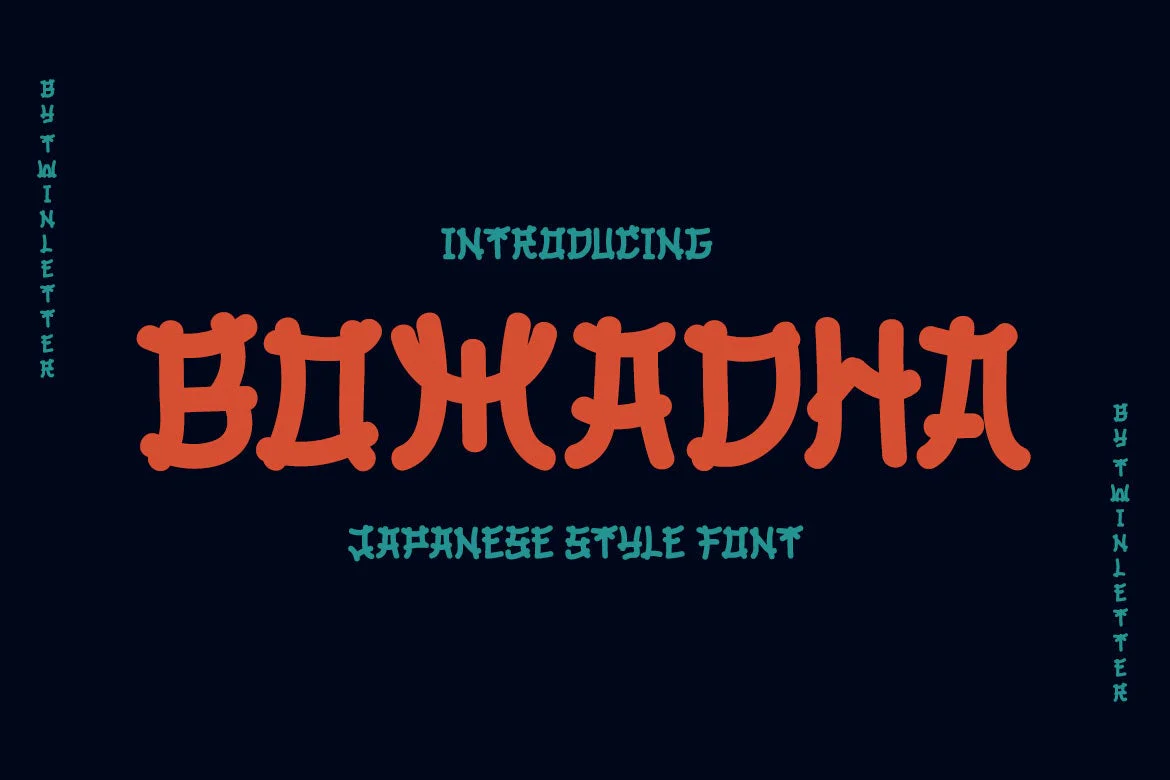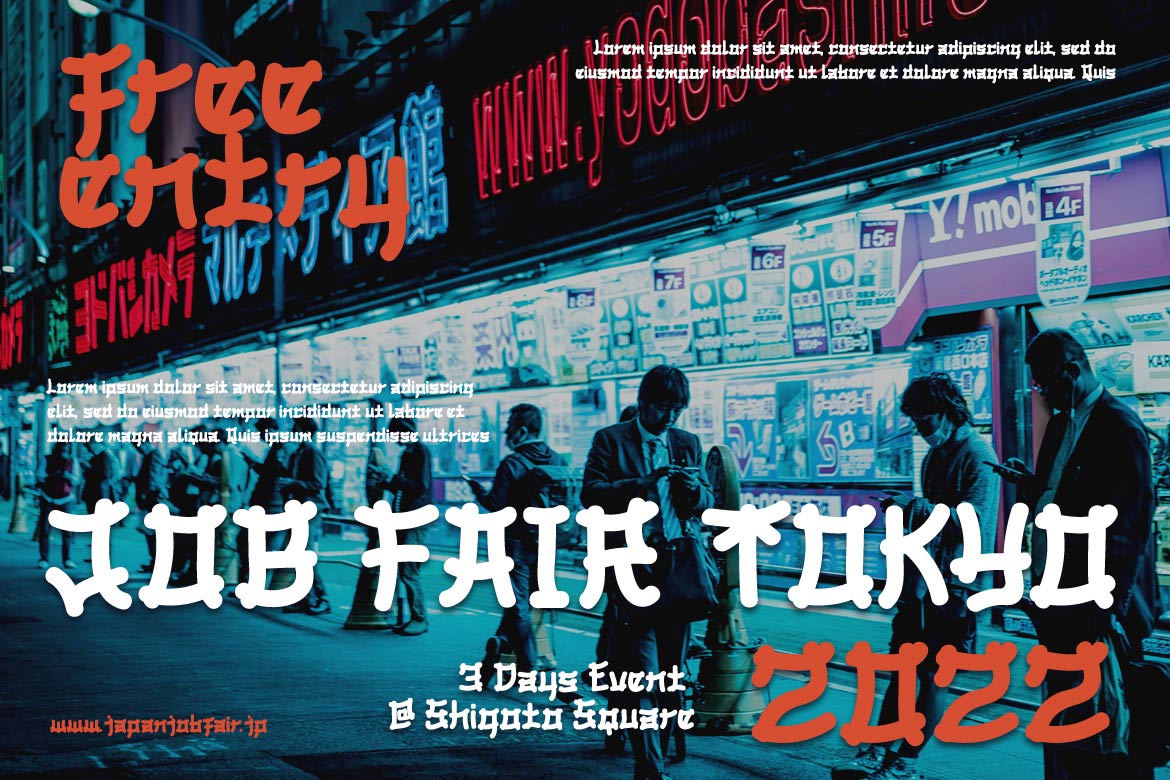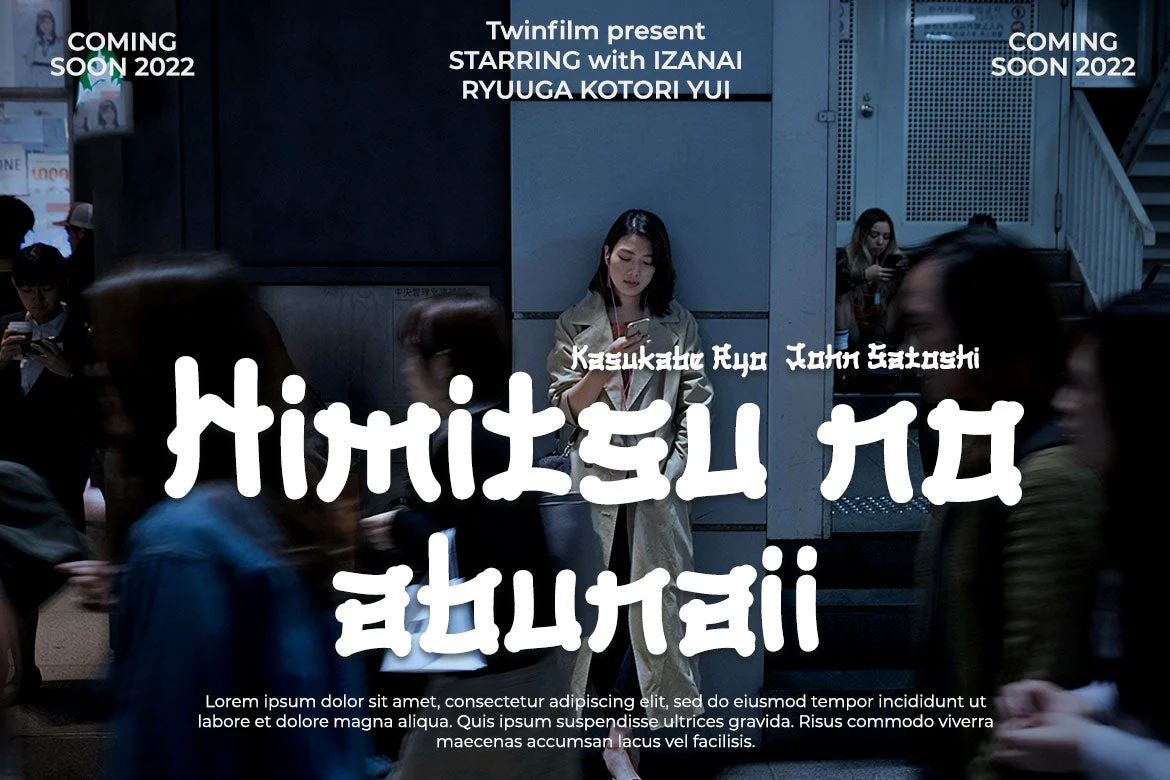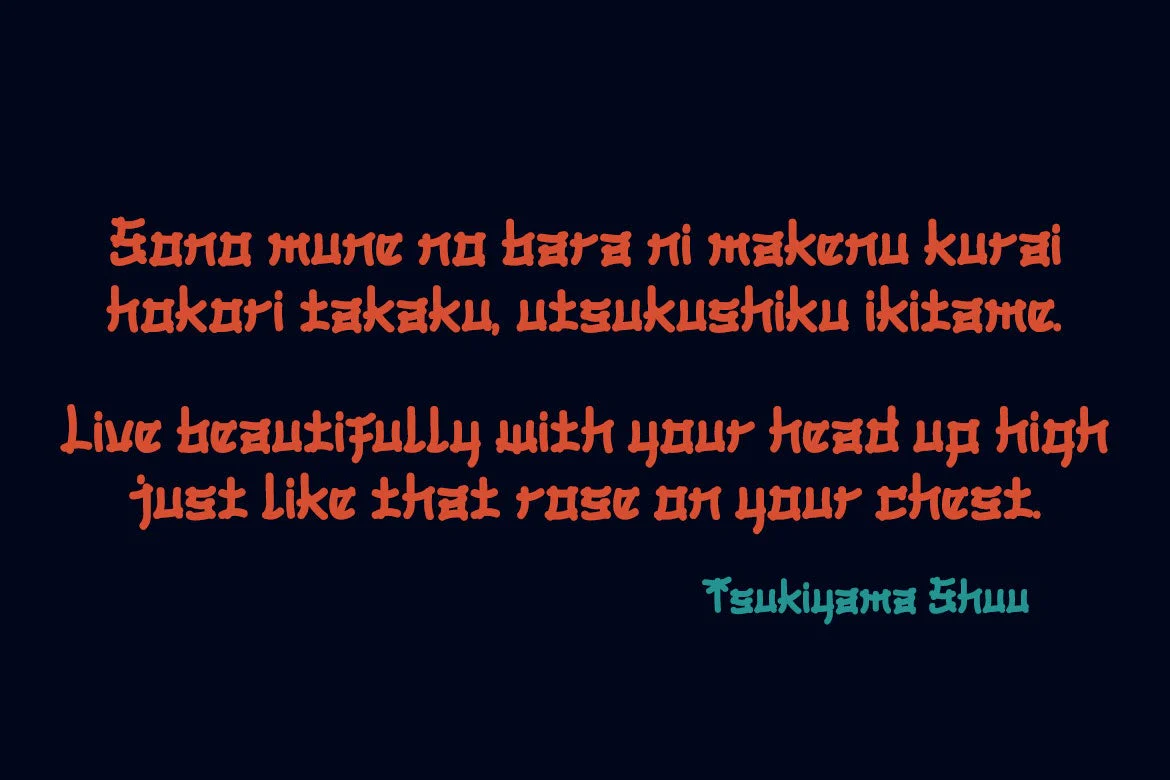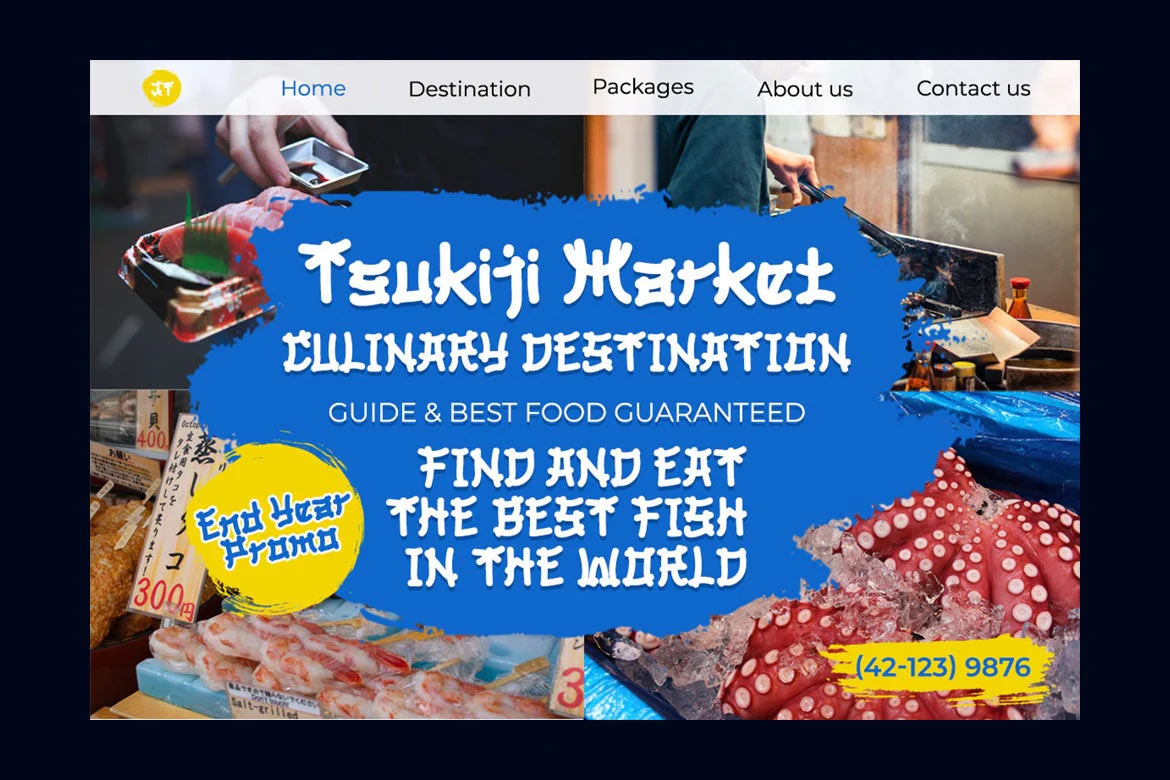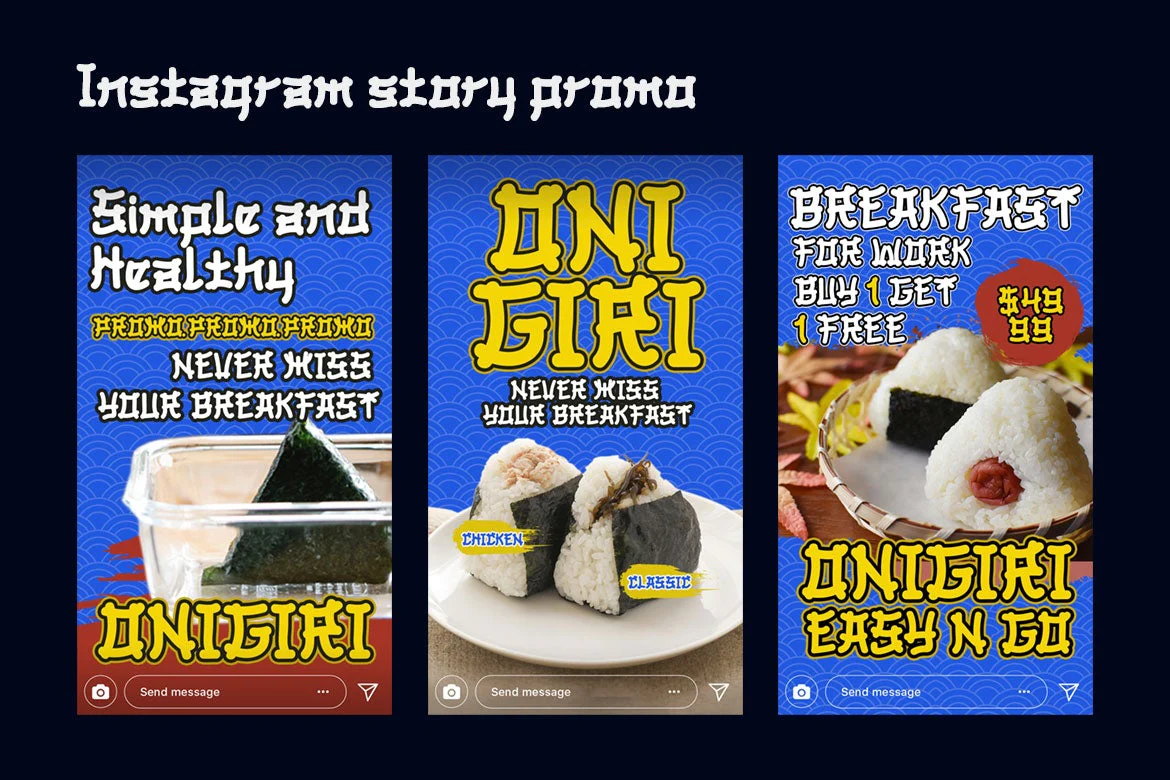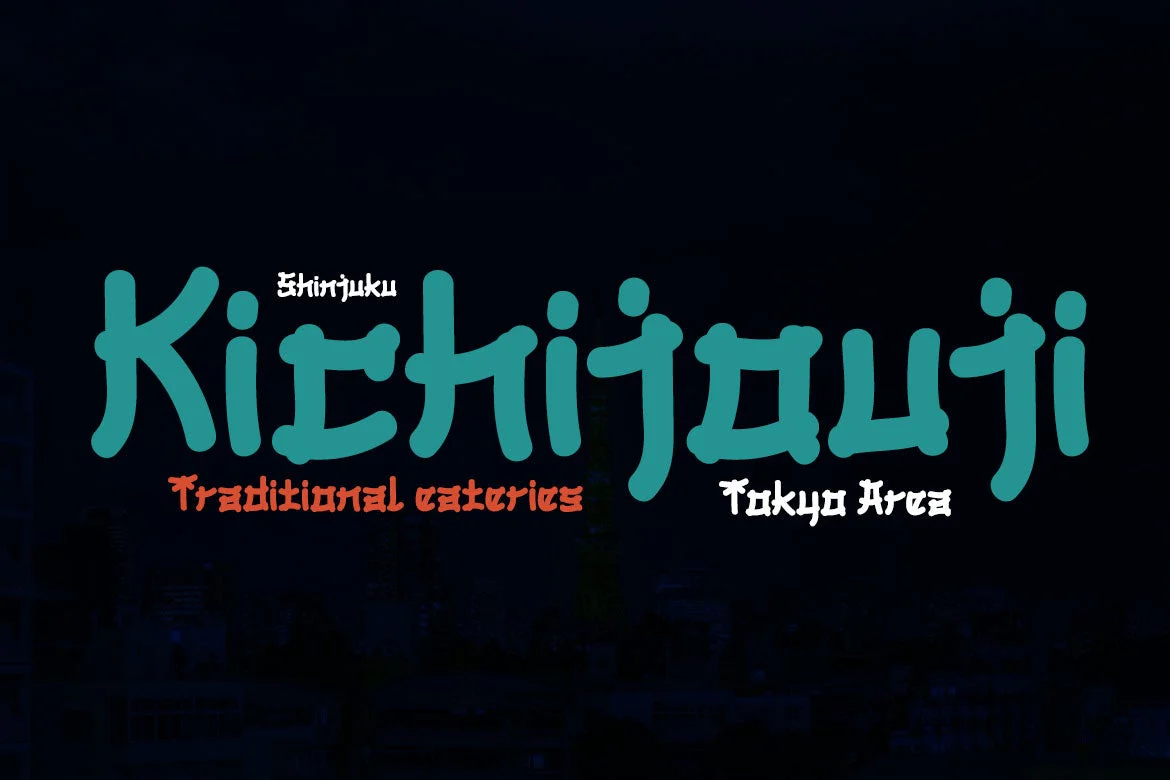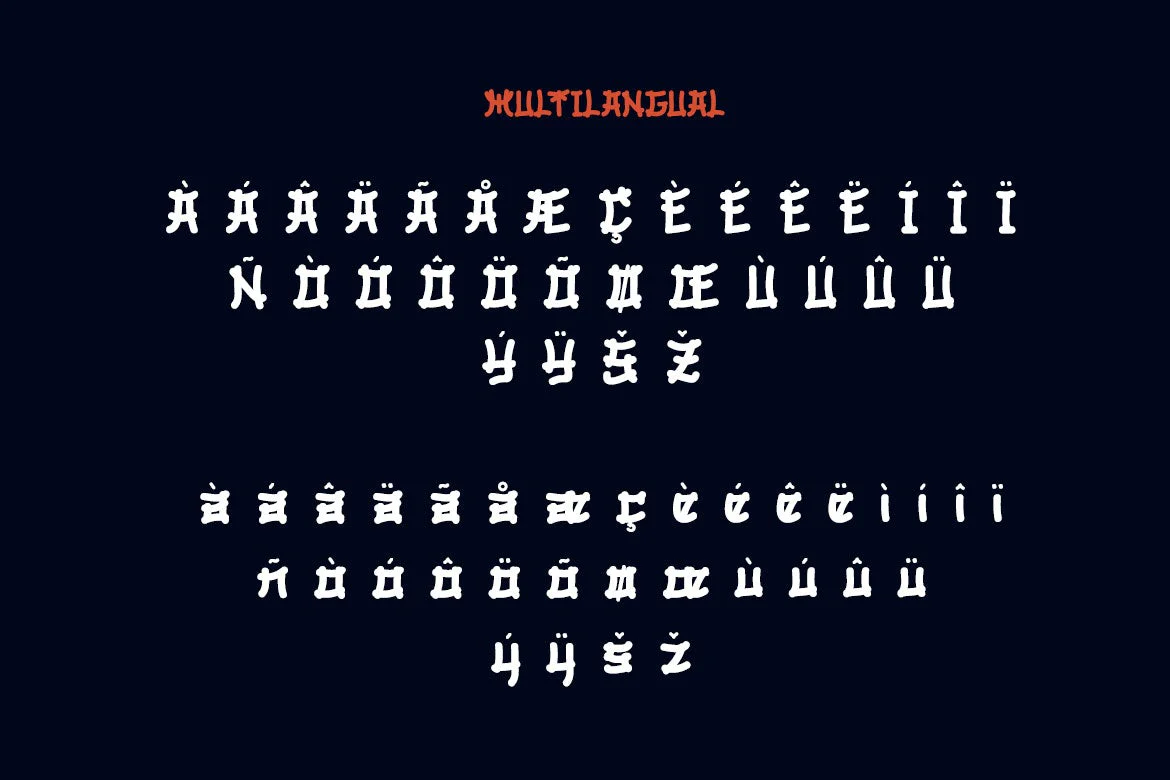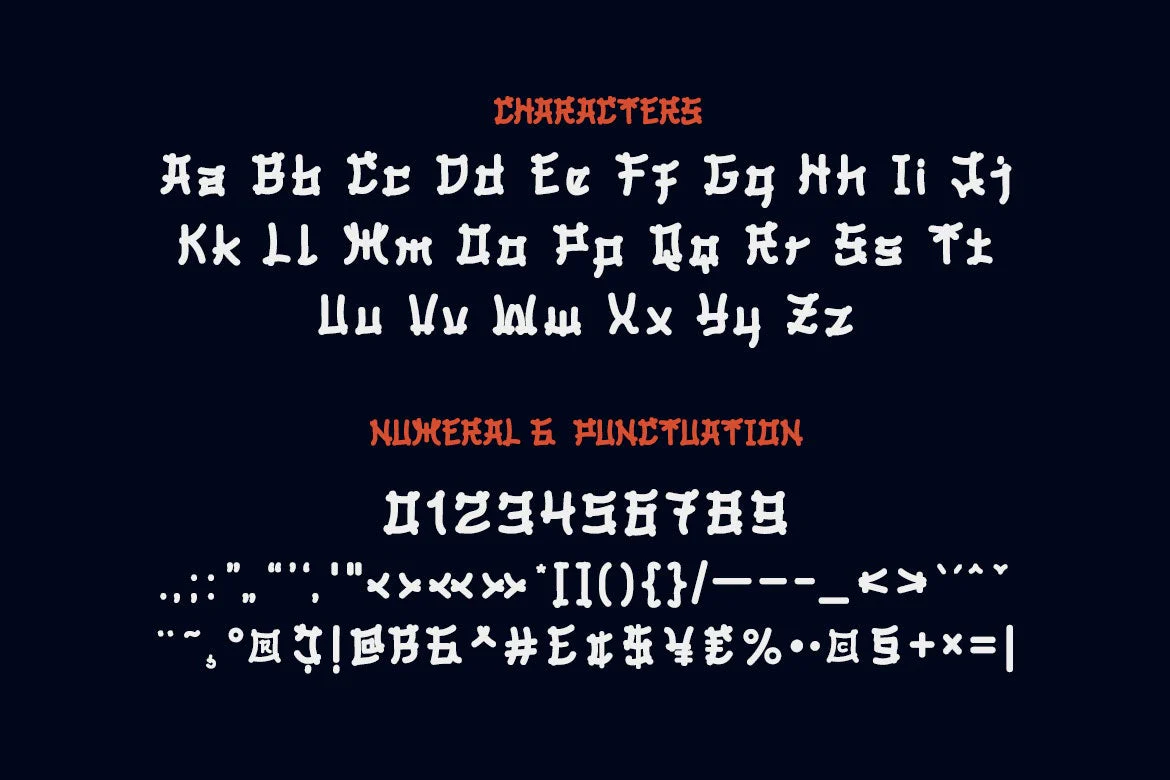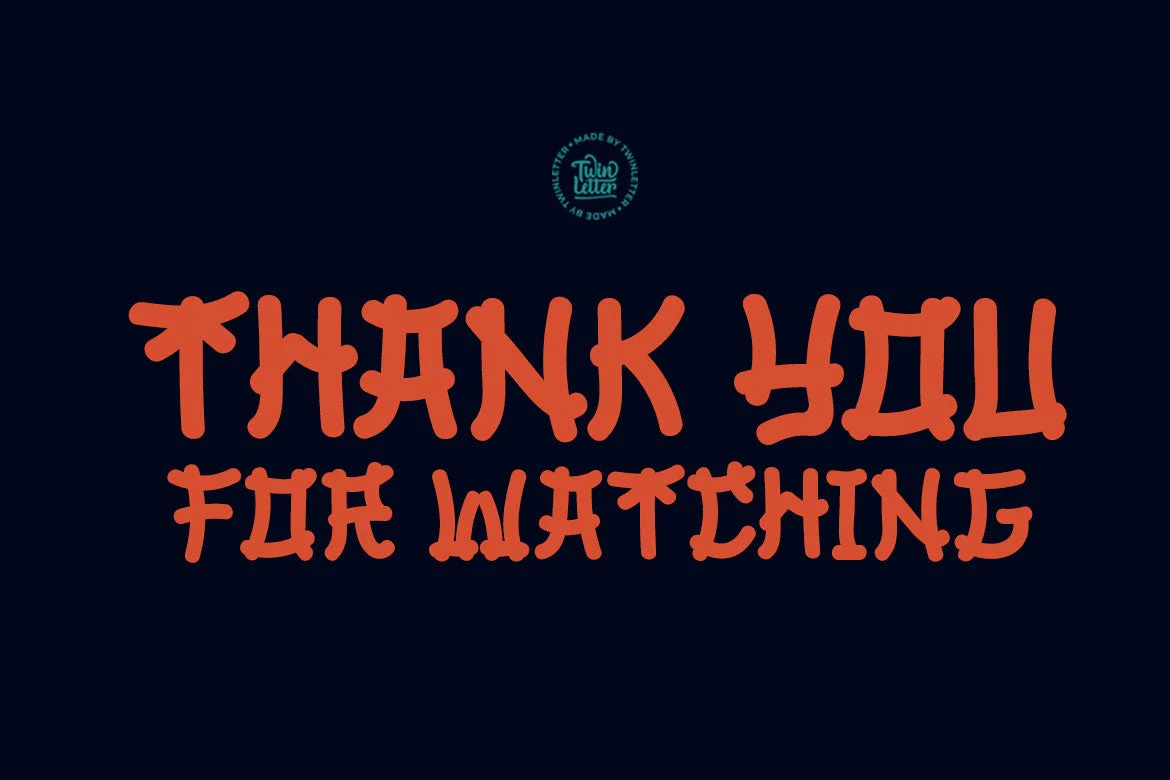
BOMADHA - Japanese style font
Bomadha is a one-of-a-kind display font with Asian elements.
The typeface, which has been built with remarkable harmony in every phrase structure that arises, makes your complete project look luxury and gorgeous, causing your entire audience to fall in love with it.
Logotypes, food banners, branding, brochure, posters, movie titles, book titles, quotes, and more may all benefit from this font.
Of course, using this font in your various design projects will make them excellent and outstanding; many viewers are drawn to the striking and unusual graphic display.
Start utilizing this typeface in your projects to make them stand out.
Bomadha is a one-of-a-kind display font with Asian elements.
The typeface, which has been built with remarkable harmony in every phrase structure that arises, makes your complete project look luxury and gorgeous, causing your entire audience to fall in love with it.
Logotypes, food banners, branding, brochure, posters, movie titles, book titles, quotes, and more may all benefit from this font.
Of course, using this font in your various design projects will make them excellent and outstanding; many viewers are drawn to the striking and unusual graphic display.
Start utilizing this typeface in your projects to make them stand out.